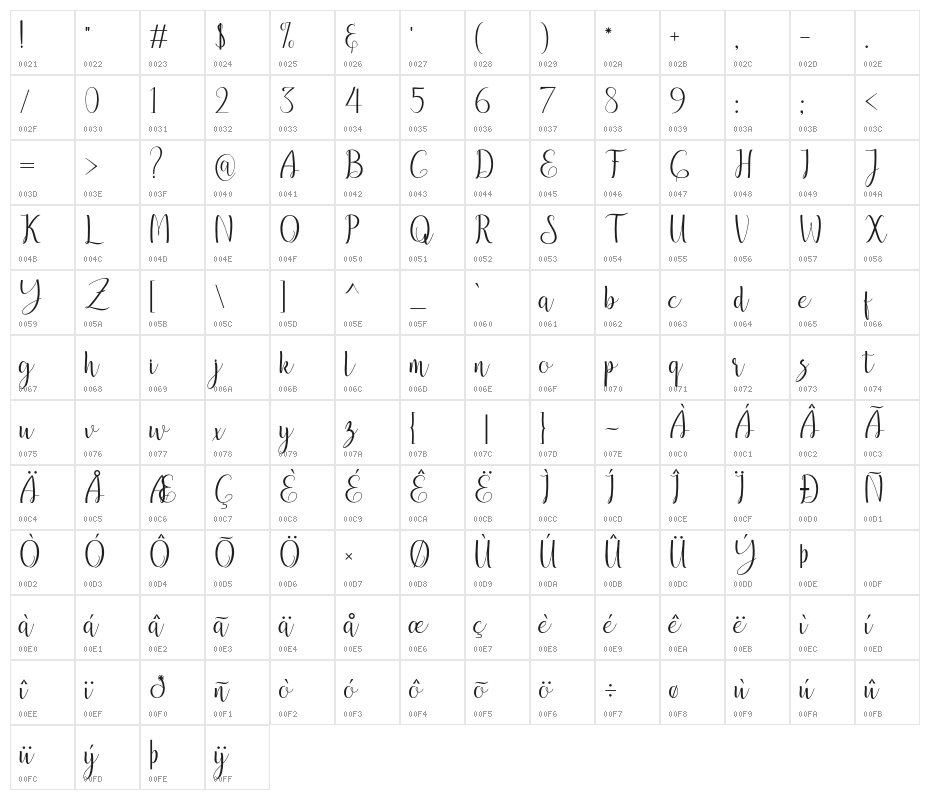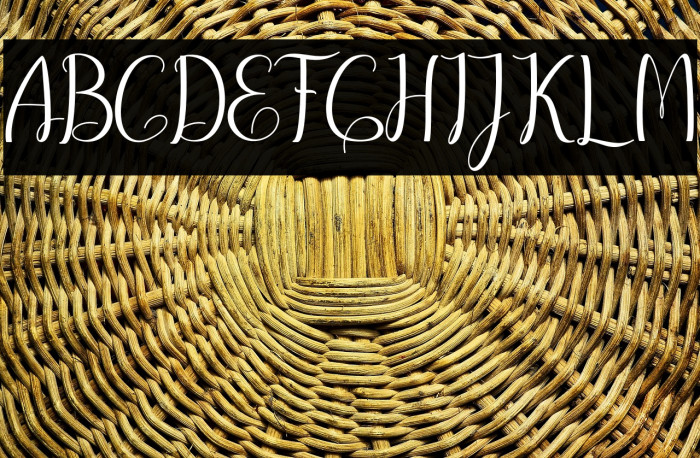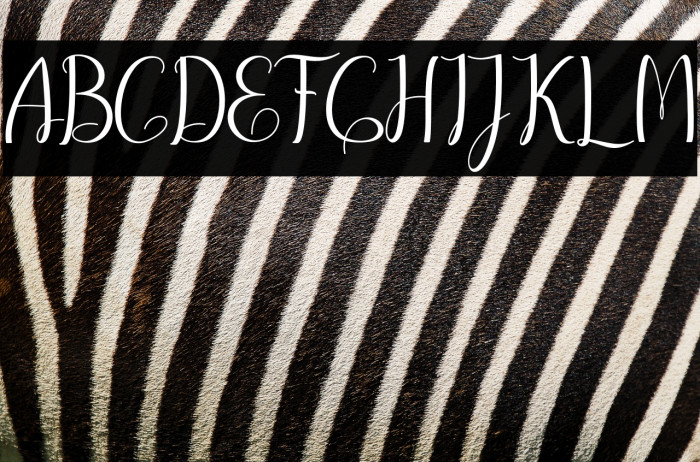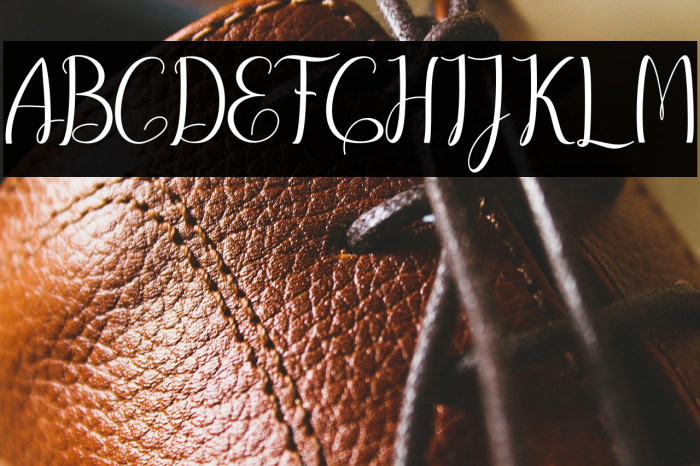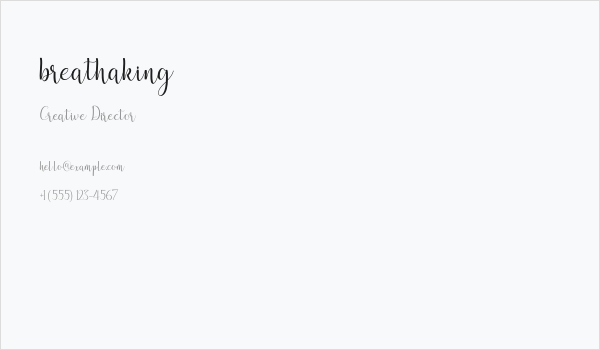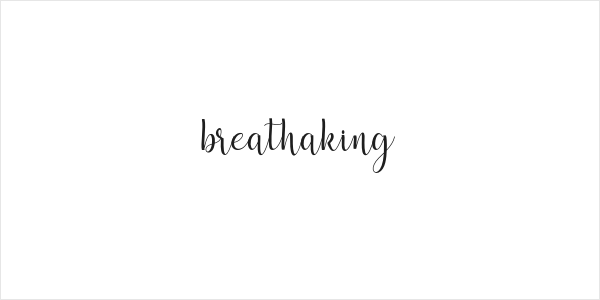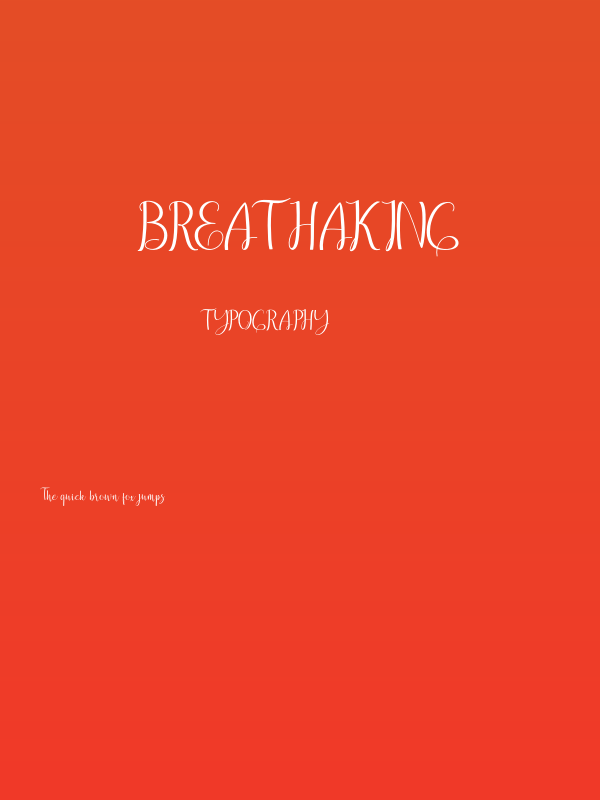
breathaking Font
breathaking Description
This font exudes elegance and sophistication with its flowing, cursive style. The characters are crafted with a graceful, handwritten touch, featuring smooth curves and delicate loops. The uppercase letters are tall and commanding, while the lowercase letters maintain a consistent, flowing rhythm. The numerals are stylishly integrated, matching the overall aesthetic with their slender and elongated forms. Special characters are thoughtfully designed, adding a touch of flair. This font is perfect for projects that require a personal, artistic touch, such as invitations, branding, and decorative designs.
| Overall Style | Elegant, Artistic |
| Use Case | Headlines, Logos, Decorative text |
| Proposed Projects | Ideal for wedding invitations, branding, greeting cards, and decorative artwork. |